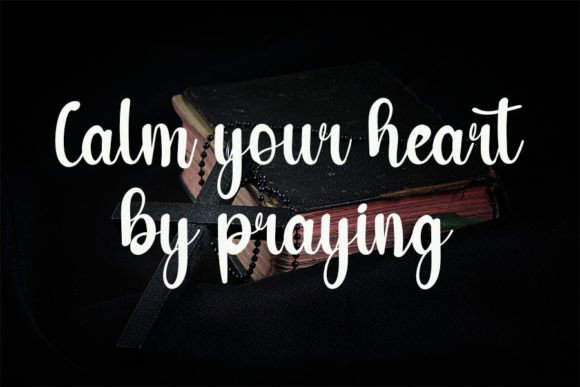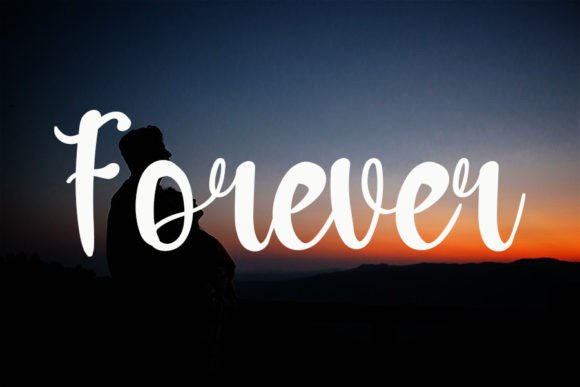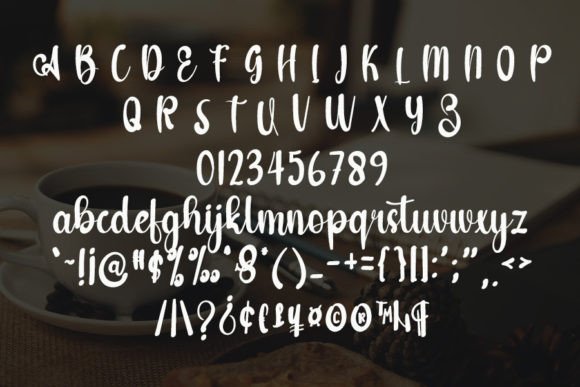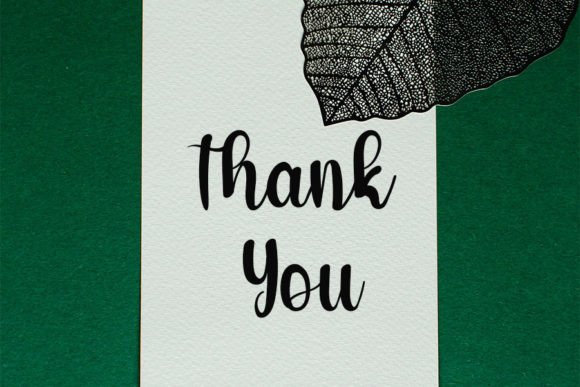
Sheep Font
About Sheep Font
Sheep, a genial handwritten font, has been meticulously crafted to earn its place as an enduring favorite. It gracefully preserves its sophisticated calligraphic roots while exuding a contemporary and fresh allure, making it a versatile and beloved choice for various design projects.
Beyond its typographic function, Sheep is an artistic companion that seamlessly blends timeless elegance with modern aesthetics. Each stroke of its letters is infused with precision, resulting in a visually pleasing and approachable appearance. This font is poised to bring a distinctive charm to a multitude of applications, making it adaptable and well-suited for diverse creative endeavors.
In the domain of invitations, Sheep transforms the ordinary into the extraordinary. Be it wedding invitations, festive announcements, or any celebratory occasion, this font adds a layer of charm and warmth. The handwritten allure of Sheep establishes a genuine connection with the reader, transforming each invitation into a personal and memorable experience.
In the digital realm, Sheep becomes a valuable asset for social media graphics and branding. Posts adorned with this font radiate friendliness, and logos gain a unique touch that sets them apart. Serving as a visual storyteller, Sheep expresses the essence of brands with a harmonious blend of traditional and contemporary flair.
The world of product packaging undergoes a metamorphosis with Sheep. From cosmetics to gourmet delights, the font elevates packaging to an art form. Its ability to strike a balance between classic and modern sensibilities ensures broad appeal, enhancing the overall visual identity of the product.
Within the realm of design, Sheep proves to be an indispensable tool. Advertisements acquire a touch of elegance, catching the eye and leaving a lasting impression. Product designs, labels, and creative projects benefit from the font’s handwritten taste, turning them into captivating visual experiences.
Sheep seamlessly integrates into the tangible world, beyond the digital and design spheres. Photography gains a personalized touch with watermarks that transcend mere identification, becoming a signature of creativity. Stationery becomes an extension of personal style, with each handwritten note carrying the warmth and sophistication inherent in Sheep.
In conclusion, Sheep stands as more than just a font; it’s an artistic ally that adds a touch of warmth and sophistication to invitations, social media graphics, advertisements, product packaging, designs, labels, photography, watermarks, and stationery. Its meticulous fusion of classic and contemporary elements ensures its enduring relevance and adoration across a spectrum of creative pursuits.